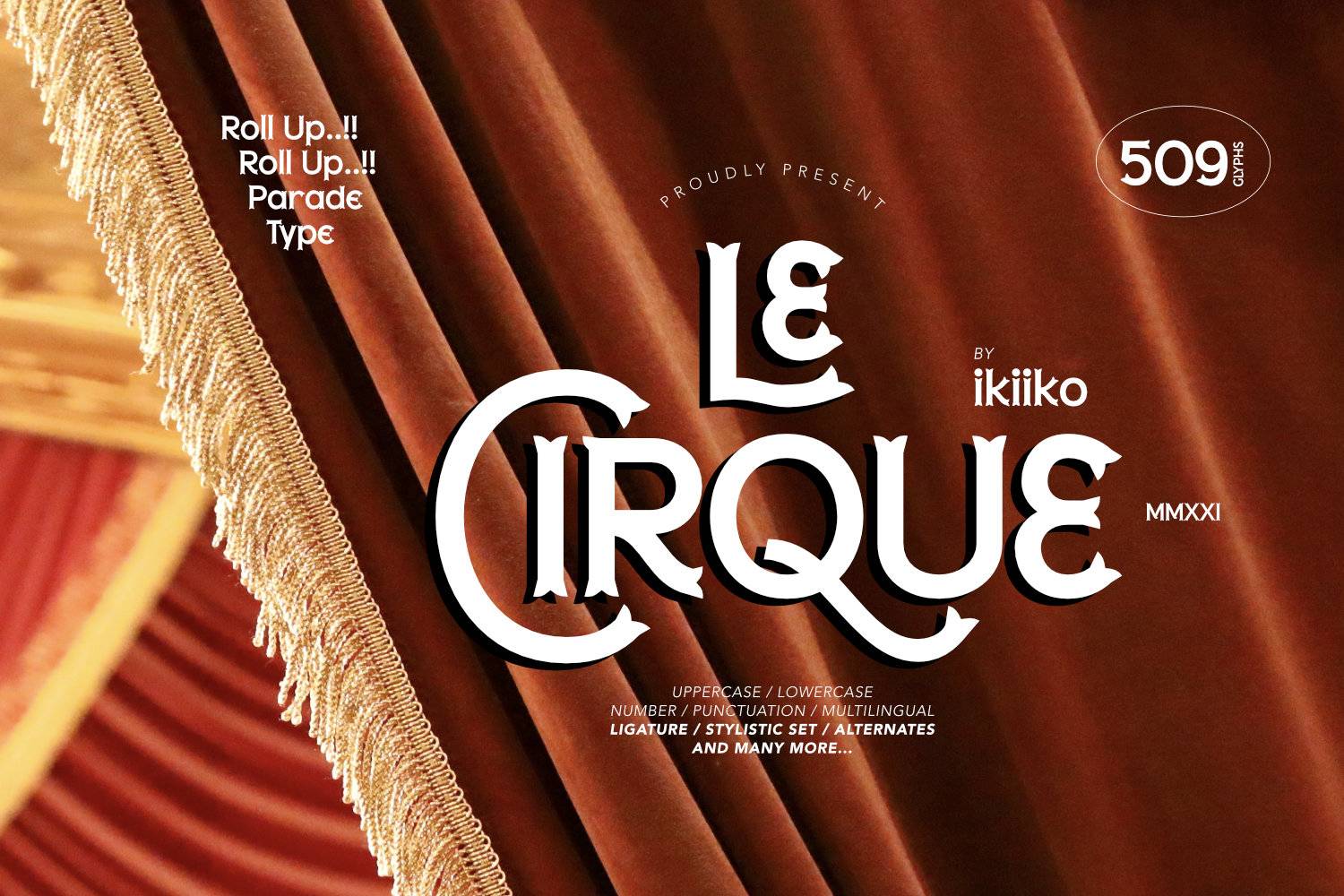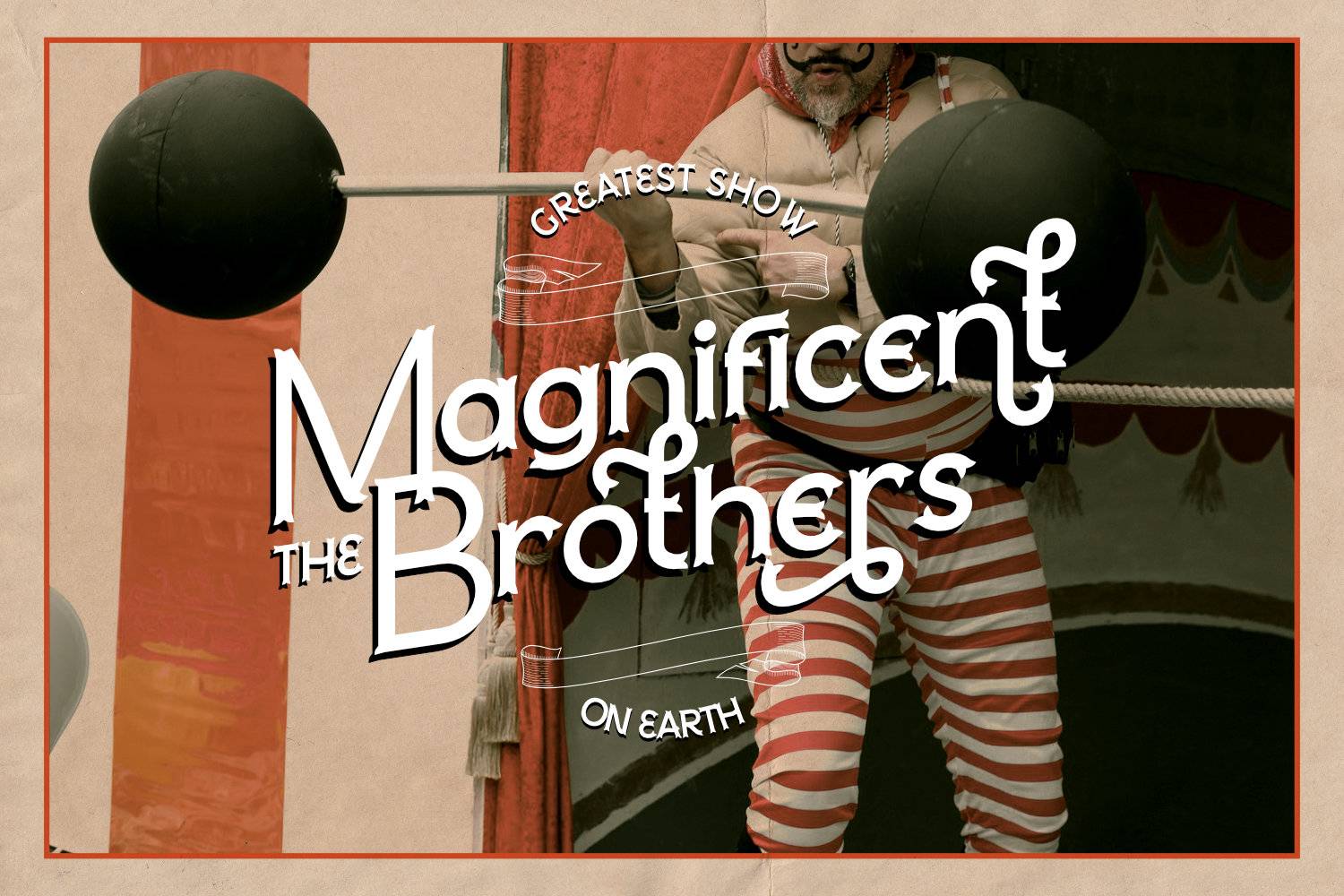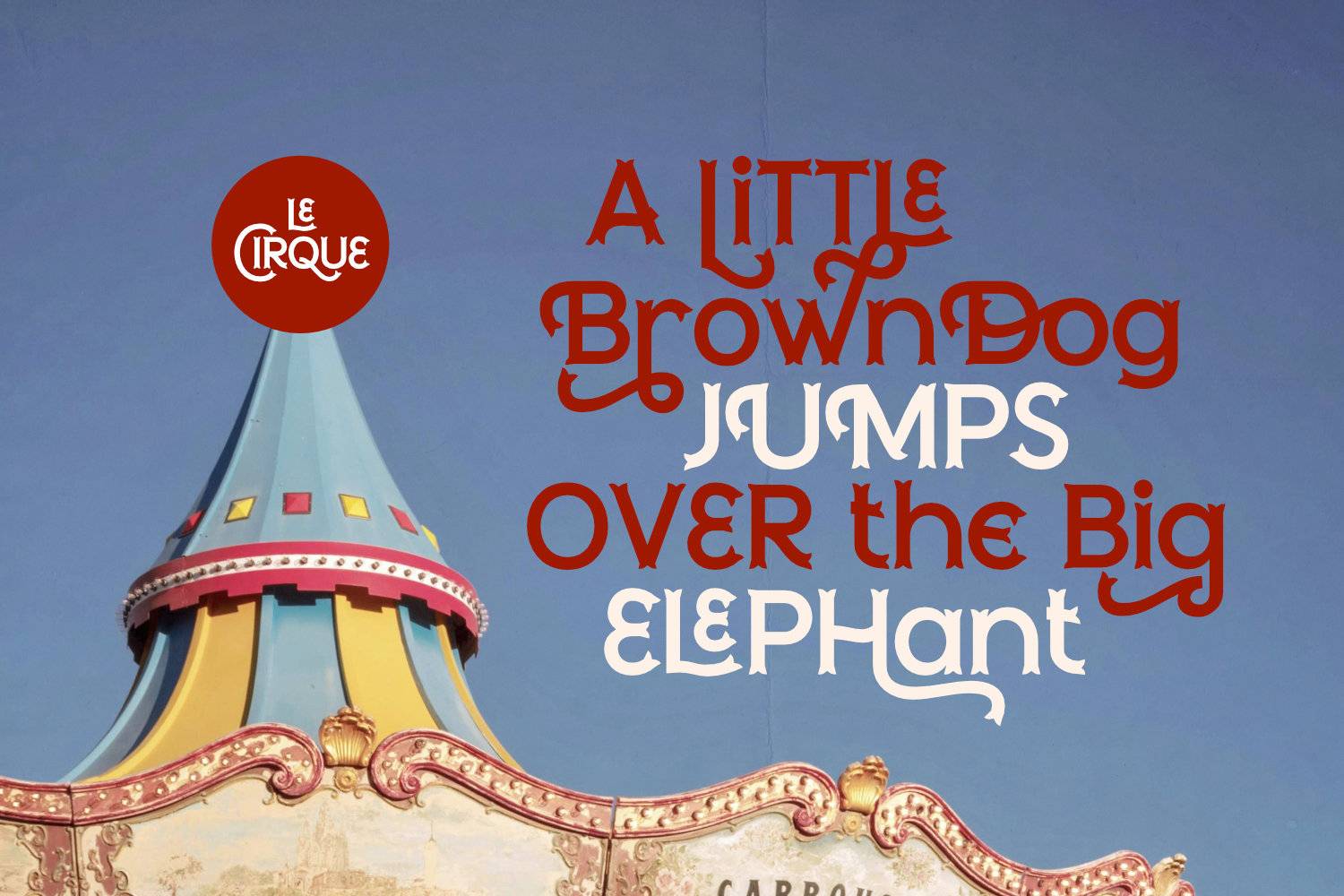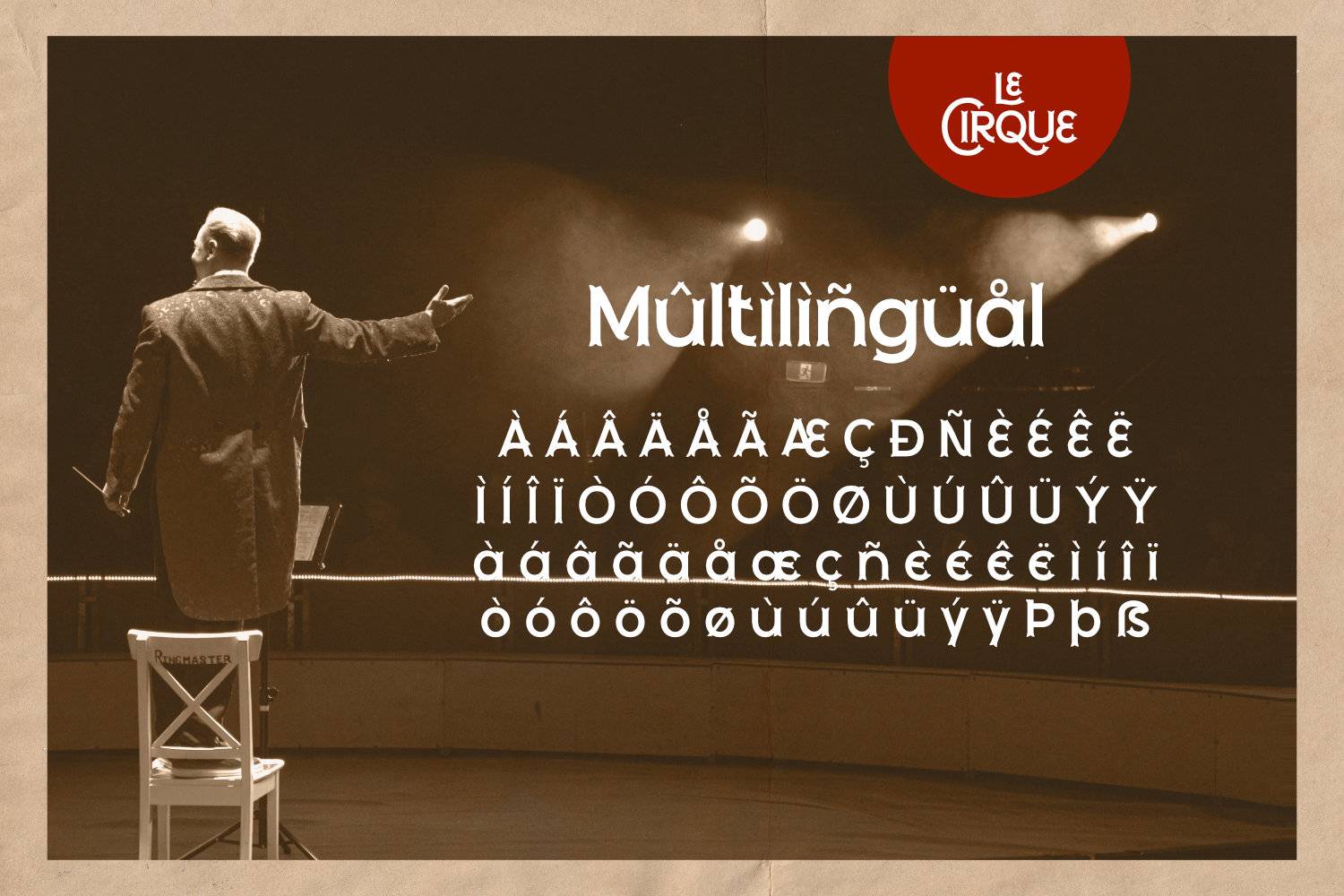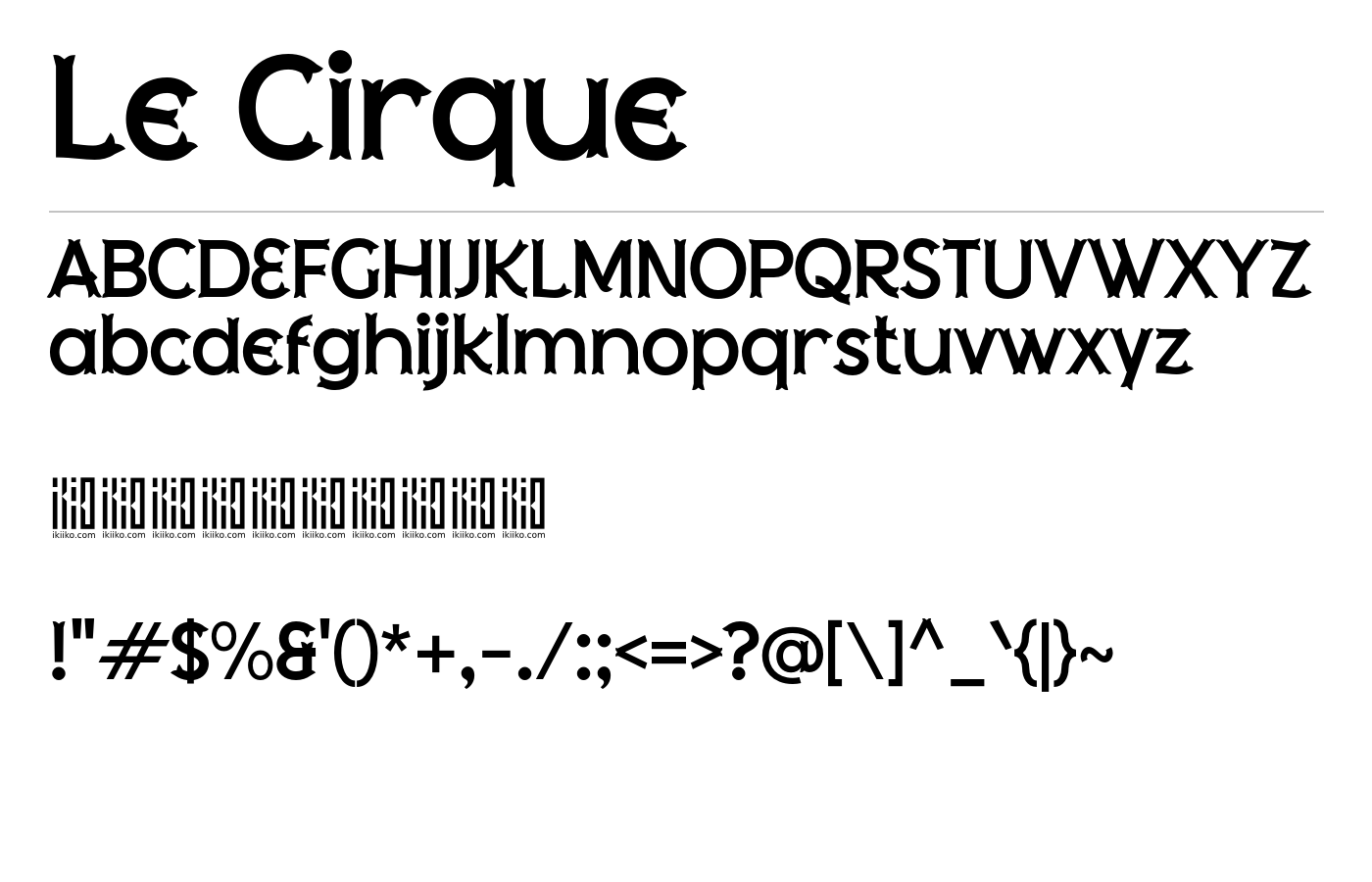
Le Cirque is a decorative serif font with playful yet slightly gothic charm, featuring strong contrast and sharp, bracketed serifs that give it a unique circus-inspired flair. Its distinctive letterforms, mixed with a balanced weight and clear structure, make it ideal for attention-grabbing headlines, branding, and creative projects that seek an artistic and vintage vibe. This font works well where personality and style are essential, such as posters, logos, and packaging with a theatrical or whimsical touch.
Le Cirque Font
About Le Cirque Font
| Font family | Le Cirque Font |
| Release date | 2021-11-18 |
| Designer | Andhika Pradana, Wahyu Eka Prasetya |